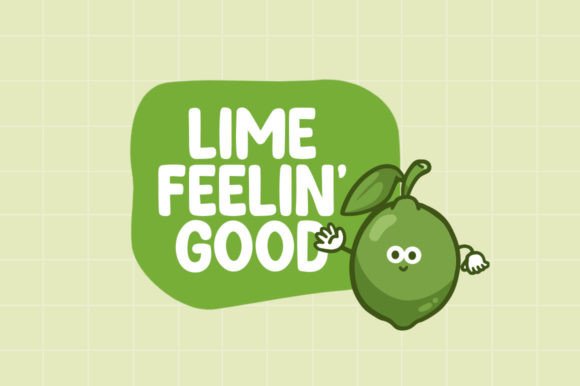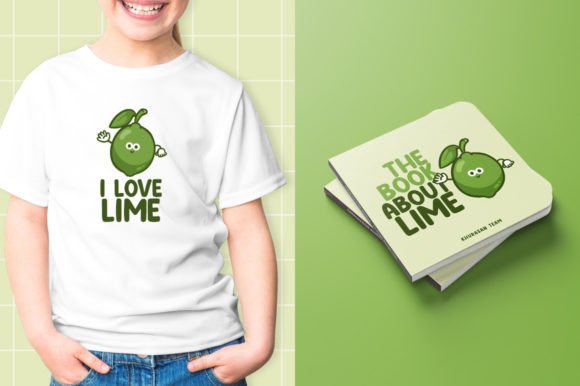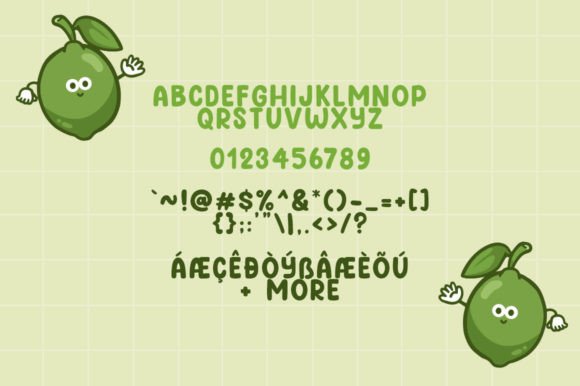
Introduction to Lime Days Font
Have you ever found yourself stuck in the middle of a creative project, searching for that perfect design resource to bring your idea to life? The search can be frustrating, but what if you stumbled upon a font that perfectly captured the essence of your vision? For designers, discovering the right font can be a game-changer, and that’s exactly what we’re excited to share with you today – the Lime Days Font.
This fun and cool display font is more than just a design tool; it’s a way to inject personality into your work. Whether you’re creating cartoon-related designs, children’s games, or any other project that requires a playful touch, the Lime Days Font is the perfect choice. With its high-quality design and transparent background, this font is a valuable addition to any designer’s toolkit.
Key Features of Lime Days Font
- High-quality design resource with a transparent background, ideal for creative projects that require a modern and sleek aesthetic.
- Unique, handcrafted font with a distinctive style, perfect for adding a touch of personality to your design work.
- Available in a range of sizes, from 12pt to 72pt, making it versatile for use in various design applications, from small text to headings.
- Resolution-independent, ensuring crisp and clear display on high-resolution screens and print materials.
- Easy to customize and edit, allowing designers to tailor the font to their specific needs and project requirements.
Honest Review: Lime Days Font
I recently came across the Lime Days Font, and I have to say, it’s a great addition to any creative project. The font is a high-quality, free download that can elevate your design to the next level. One of the things that stands out about this font is its versatility. It’s perfect for use in a variety of contexts, from digital design to print materials.
Here are some of the things that work well with the Lime Days Font:
- ✨ Clean and modern aesthetic that’s perfect for a variety of design projects
- ✨ Highly legible and easy to read, even at small sizes
- ✨ Transparent background, making it easy to use in any design environment
That being said, there are a few limitations to consider:
- ⚠️ Limited number of weights and styles available
- ⚠️ May not be suitable for use in very formal or traditional design projects
Overall, I’m impressed with the Lime Days Font. It’s a great resource for designers looking to add some visual interest to their projects. While it may not be perfect, it’s definitely worth checking out.
Tips for Getting the Most Out of Lime Days Font
For the best results, use Lime Days Font on a transparent background to make it stand out. You can also experiment with different font sizes and styles to add visual interest to your design. Additionally, pair Lime Days Font with other high-quality design resources to create a cohesive and professional look.
Lime Days Font is a versatile design resource that can be used for a variety of creative projects, including social media graphics, blog posts, and presentations. Its high-quality design makes it perfect for professional and personal use, and its free download option makes it accessible to anyone.
Yes, the Lime Days Font has a transparent background, making it ideal for use on colored backgrounds or for creating visually appealing designs with a clean and minimalist look.